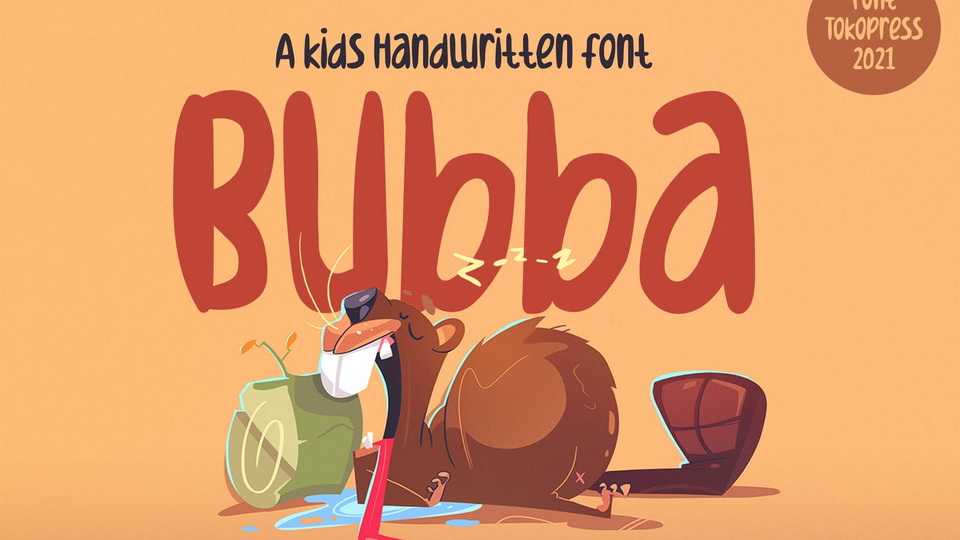
Download Bubba font, a kids handwritten typeface. Happiness and joy are what children world. And Bubba is all about that. It brings a smile all over the place.